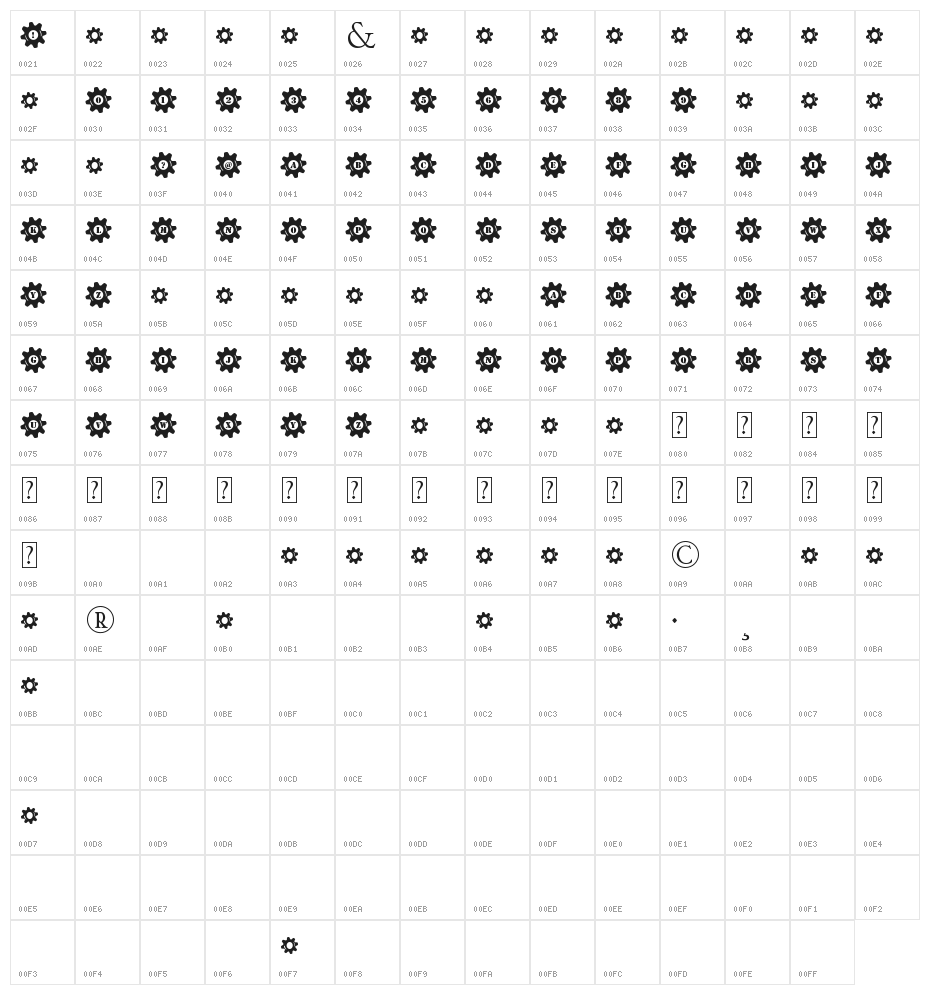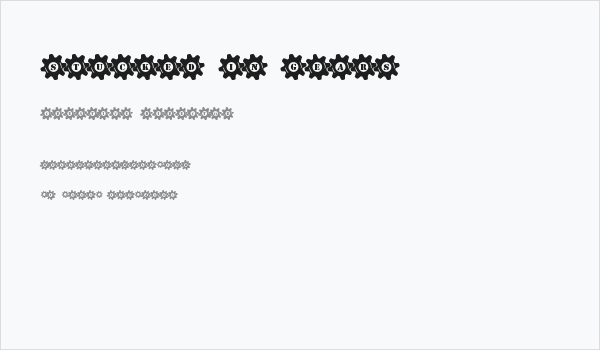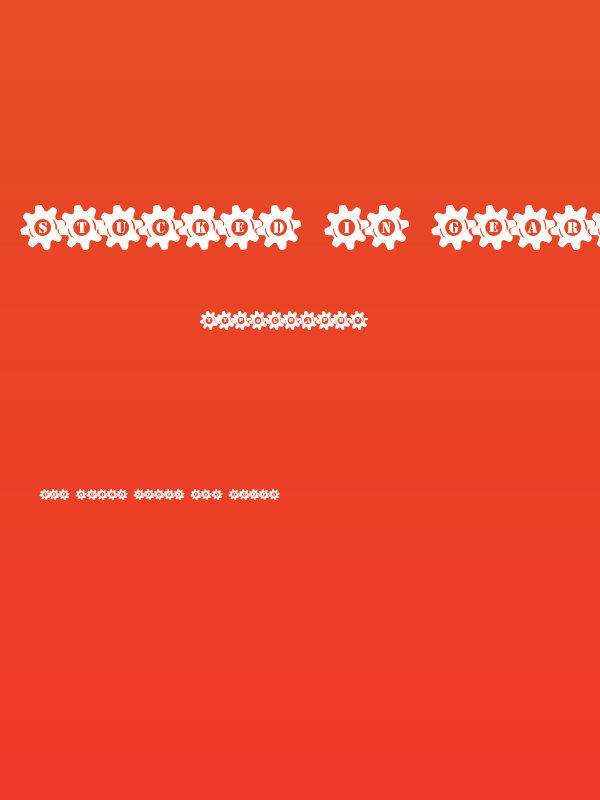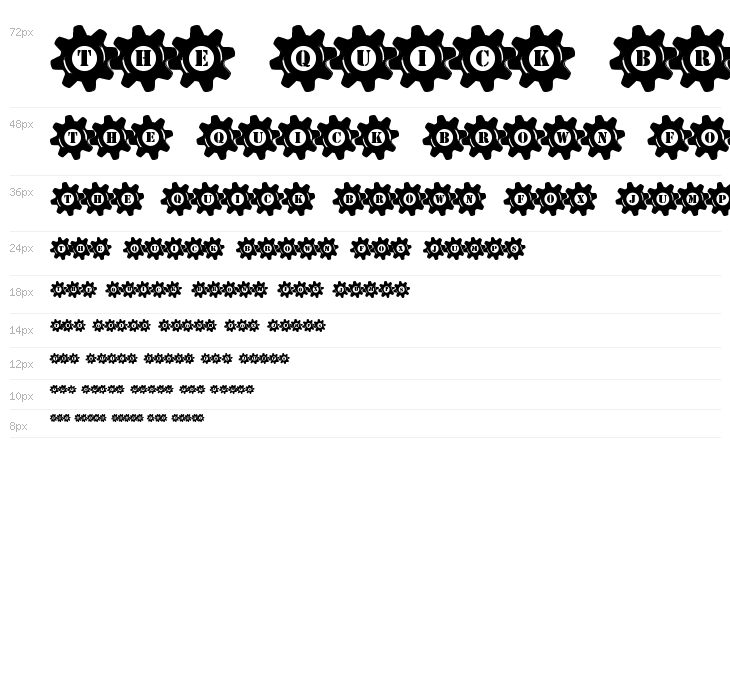
Stucked in Gears Font
Stucked in Gears Description
This unique font features characters encased within gear-like shapes, creating an industrial and mechanical aesthetic. Each letter and number is centered within a bold, black gear, giving the font a distinct and eye-catching appearance. The characters themselves are classic serif style, providing a contrast to the rugged gear outlines. This font is perfect for projects that require a strong, industrial theme, such as steampunk designs or engineering-related graphics. The combination of traditional serif characters with the bold, mechanical gear shapes makes it versatile for both modern and vintage-inspired projects.
| Overall Style | Industrial, Decorative |
| Use Case | Logos, Posters, Branding |
| Proposed Projects | Steampunk designs, engineering graphics, industrial-themed posters, and vintage-inspired branding. |